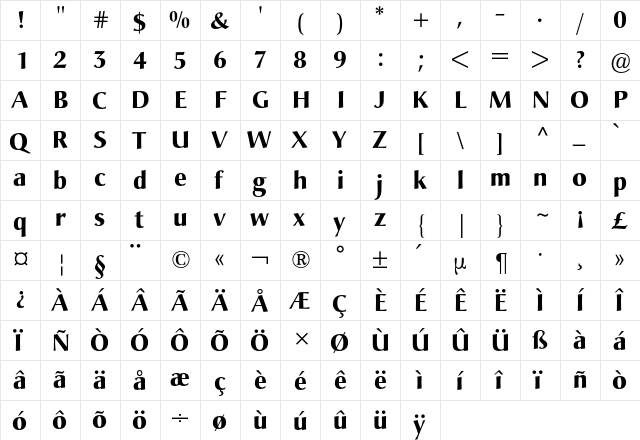
Christiana BQ Regular
Design Context for Christiana BQ Typeface
Christiana BQ offers clean, dependable letterforms without strong stylistic allegiance, making it a practical choice for designers who need flexibility.